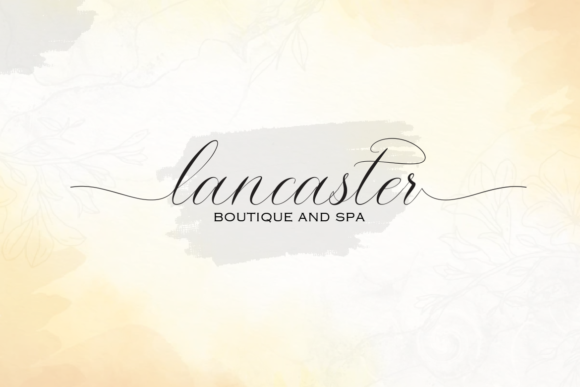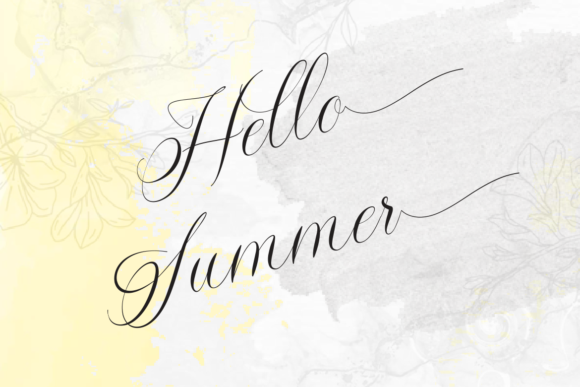
Timeline Font
db-ku.com - Script & Handwritten -- Timeline is a sleek, modern and graceful script font. Fall in love with its ravishing style and use it to create beautiful designs. Timeline is beautiful and well balanced, and as a result, it matches a wide pool of designs.